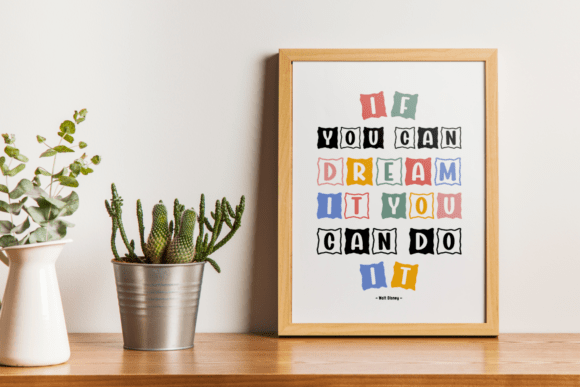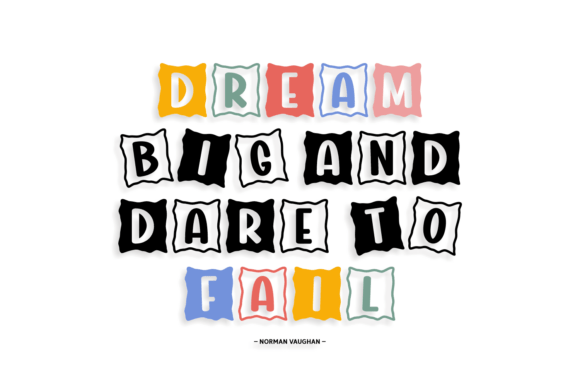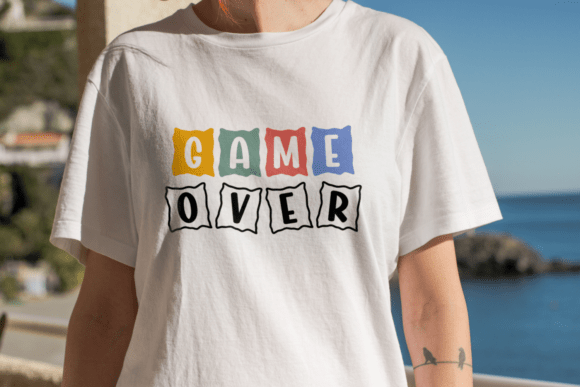
Introduction to Scrap Frame Font
Scrap Frame is a playful, creative, and highly unique decorative font designed to bring a β€œDIY” scrapbook aesthetic to your digital projects.
Characterized by bold, rounded sans-serif letterforms, each character is individually housed within its own charming, hand-drawn β€œscrap” border The irregular, wavy frames provide a sense of tactile texture and spontaneous craft, making this typeface an exceptional choice for creative journaling, classroom bulletin boards, children’s party invitations, and quirky social media branding.